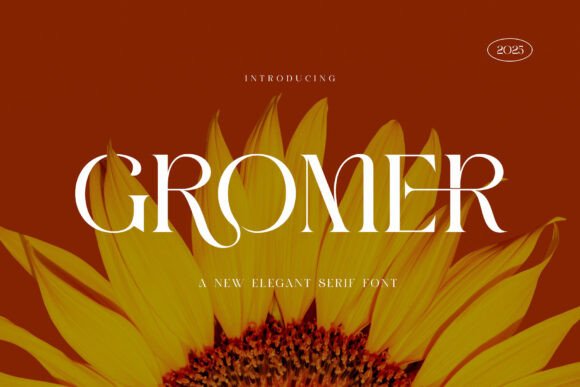
Gromer Font: Elevate Your Designs with Elegance and Sophistication
In the world of typography, fonts play a crucial role in conveying the tone and personality of a brand or design. When it comes to creating upscale designs, the right font can make all the difference. Introducing Gromer Font, an elegant ligature serif modern font that embodies the beauty of fresh blooms and timeless elegance. With its bold yet refined ligatures, Gromer stands out as a sophisticated and feminine typeface, perfect for high-end branding, fashion, and floral designs.
The Inspiration Behind Gromer Font
Gromer Font is inspired by the beauty of nature, particularly the elegance of fresh blooms. The font’s creator aimed to capture the essence of these natural wonders and translate them into a typographic form that exudes sophistication and refinement. The result is a font that pairs the charm of classic serif styles with a modern twist, making it perfect for designers looking to add a touch of elegance to their work.
Key Features of Gromer Font
Gromer Font boasts several key features that make it an ideal choice for upscale designs. Some of its notable features include:
- Elegant Ligatures: Gromer’s ligatures are bold yet refined, adding a touch of sophistication to any design.
- Serif Style: The font’s serif style gives it a classic and timeless feel, perfect for high-end branding and fashion designs.
- Modern Twist: Gromer’s modern twist sets it apart from traditional serif fonts, making it perfect for designers looking for a unique and stylish typeface.
- Feminine Touch: The font’s feminine touch makes it perfect for designs that require a touch of elegance and sophistication.
Uses of Gromer Font
Gromer Font is a versatile typeface that can be used in a variety of design applications. Some of the most popular uses of Gromer Font include:
- Upscale Branding: Gromer’s elegant and sophisticated design makes it perfect for high-end branding and logo design.
- Fashion Design: The font’s modern twist and feminine touch make it perfect for fashion designs, including clothing labels and advertisements.
- Floral Design: Gromer’s inspiration from fresh blooms makes it perfect for floral designs, including packaging and marketing materials.
- Wedding Design: The font’s elegant and refined design makes it perfect for wedding designs, including invitations and wedding stationery.
Benefits of Using Gromer Font
Using Gromer Font in your designs offers several benefits, including:
- Elegance and Sophistication: Gromer adds a touch of elegance and sophistication to any design, making it perfect for high-end branding and fashion designs.
- Uniqueness: The font’s modern twist and refined ligatures make it unique and stylish, setting it apart from traditional serif fonts.
- Versatility: Gromer is a versatile typeface that can be used in a variety of design applications, from branding and fashion to floral and wedding designs.
- Easy to Read: The font’s clear and refined design makes it easy to read, even at small sizes.
Tips for Using Gromer Font
To get the most out of Gromer Font, here are some tips to keep in mind:
- Use it for Headings: Gromer is perfect for headings and titles, where its elegant and refined design can shine.
- Pair it with Simple Fonts: Pair Gromer with simple and clean fonts to create a striking contrast and add visual interest to your design.
- Experiment with Colors: Gromer looks great in a variety of colors, so don’t be afraid to experiment and find the perfect hue for your design.
- Use it for High-End Designs: Gromer is perfect for high-end designs, so use it for upscale branding, fashion, and floral designs.
In conclusion, Gromer Font is an elegant ligature serif modern font that embodies the beauty of fresh blooms and timeless elegance. With its bold yet refined ligatures, Gromer stands out as a sophisticated and feminine typeface, perfect for upscale designs. Whether you’re a designer looking to add a touch of elegance to your work or a brand seeking to elevate your image, Gromer Font is the perfect choice.